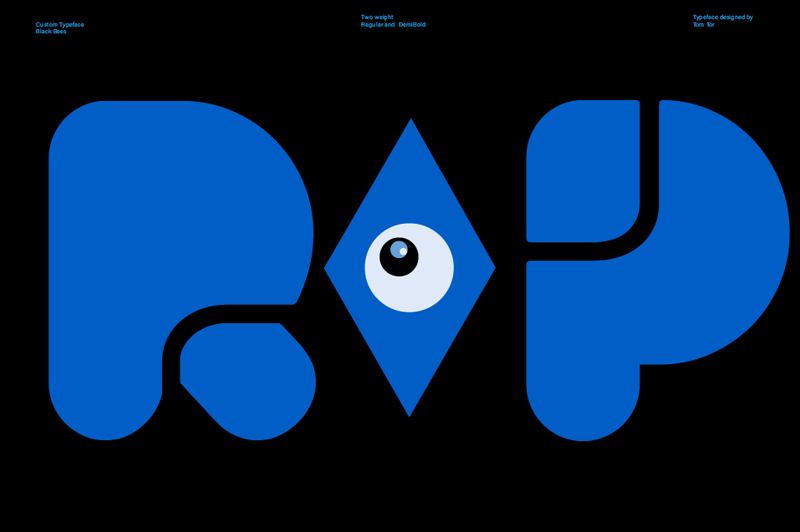
Font name: | Black Bees |
Author: | Tom Tor |
Note by Tom Tor | |
You�ll recognize the wonderful and exciting with this typeface, which is perfection in every display contemporary and modern font. Introducing Black Bees Font Family uppercase! Black Bees was designed by Tom Tor. Black Bees is a layered type family For more rounded shape and a simple thin line between making a good stencil typeface display design. This font consists of 4 layered type system, namely Regular, Italic, Bold and DemiBold which allows many different combinations of fonts and thickness that you can organizing and design to your need. Here are two examples two weight Regular and DemiBold that you can download and try it out! |